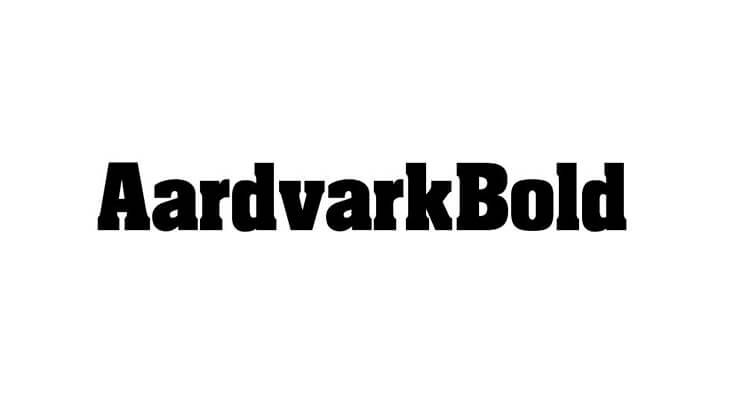
Aardvark Font is a display serif typeface that has a heavy in its blocky look and feels and is bold and attention-grabbing.
Harold Lohner took the charge of designing it and releasing it via Harold’s Fonts in 2000. Download this one today and try it in your next design project.
It is made with bold strokes in which the designer has added a cursive effect. In each capital letter, the designer uses an extra sweep in the upper left corner.
It can be found in a single regular style along with Truetype features. This single style contains 247 glyphs as well as 1000 units per em.
This one can be a wonderful fit for logos, headlines, movie posters, game titles, unique signs, banners, product design special event cards, and other types that need to command attention.